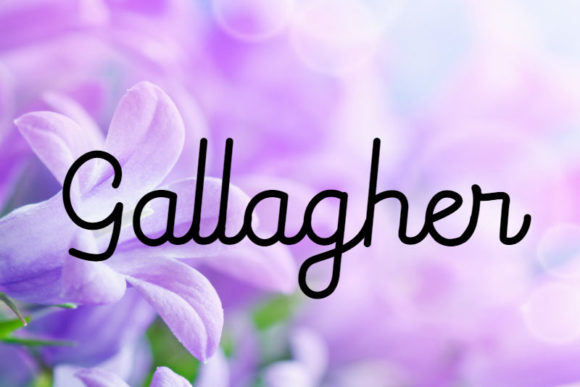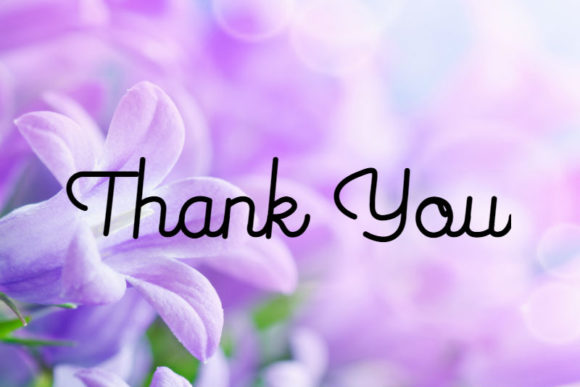
Gallagher Font
About Gallagher Font
Gallagher is a fun and cool handwritten font with a unique feel. It’s the perfect font for turning any design idea into a true standout!